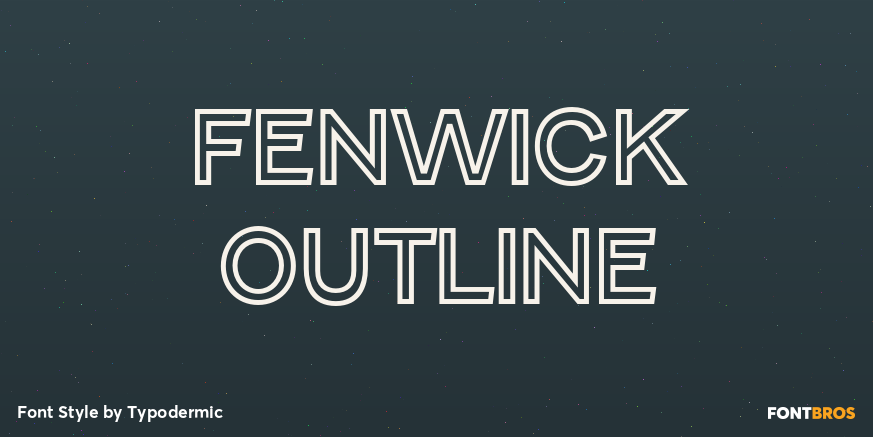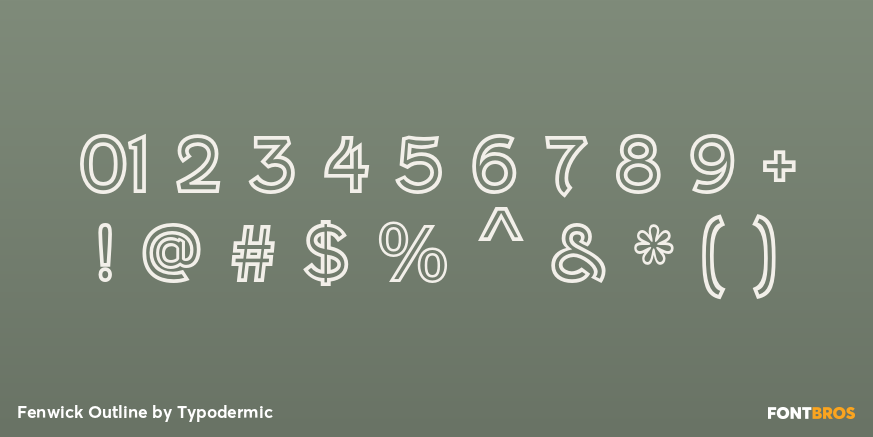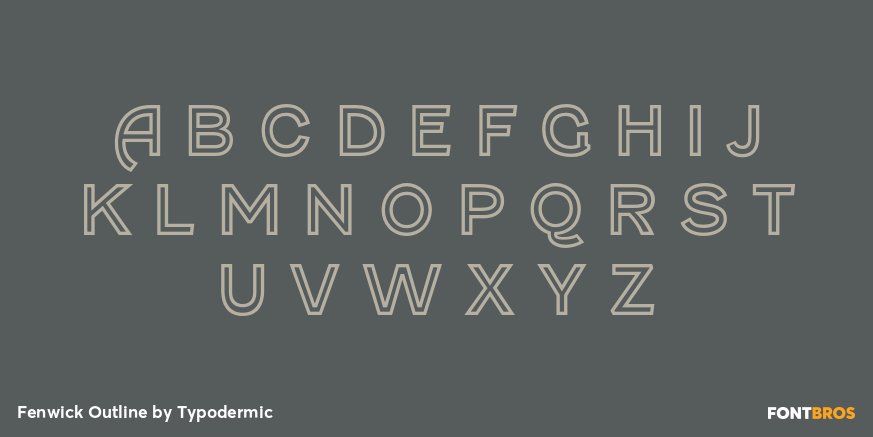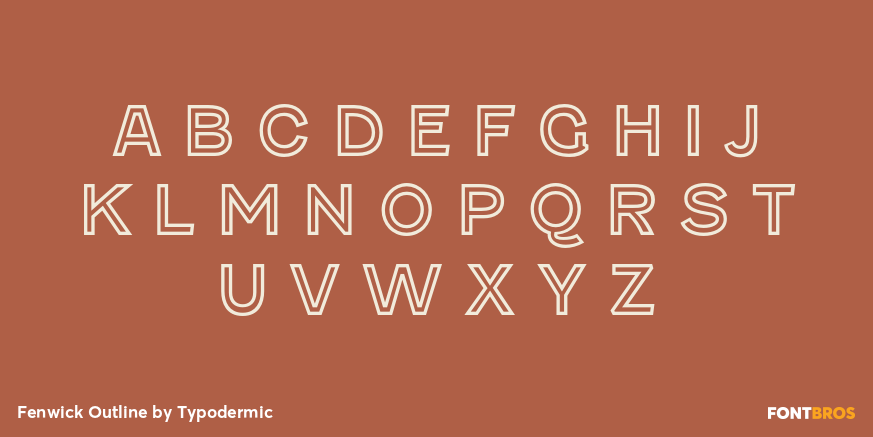
Fenwick Outline
Fenwick Outline isolates the decorative display side of the Fenwick family. Its all-caps outline construction turns short names into open, sign-like lettering with the period character of early twentieth-century commercial graphics. The hollow forms preserve Fenwick’s geometric proportions while allowing background color or imagery to show through, giving headings a lighter but still ceremonial presence.
Use it for hotel bars, railway excursions, clubhouse anniversaries, theatre events, chocolate collections, watch packaging, souvenir merchandise, and restored-market signage. It works best at display sizes for short names, dates, initials, and commemorative phrases. Pair it with Fenwick Regular, Light, or Italic for menus, schedules, captions, and supporting information.